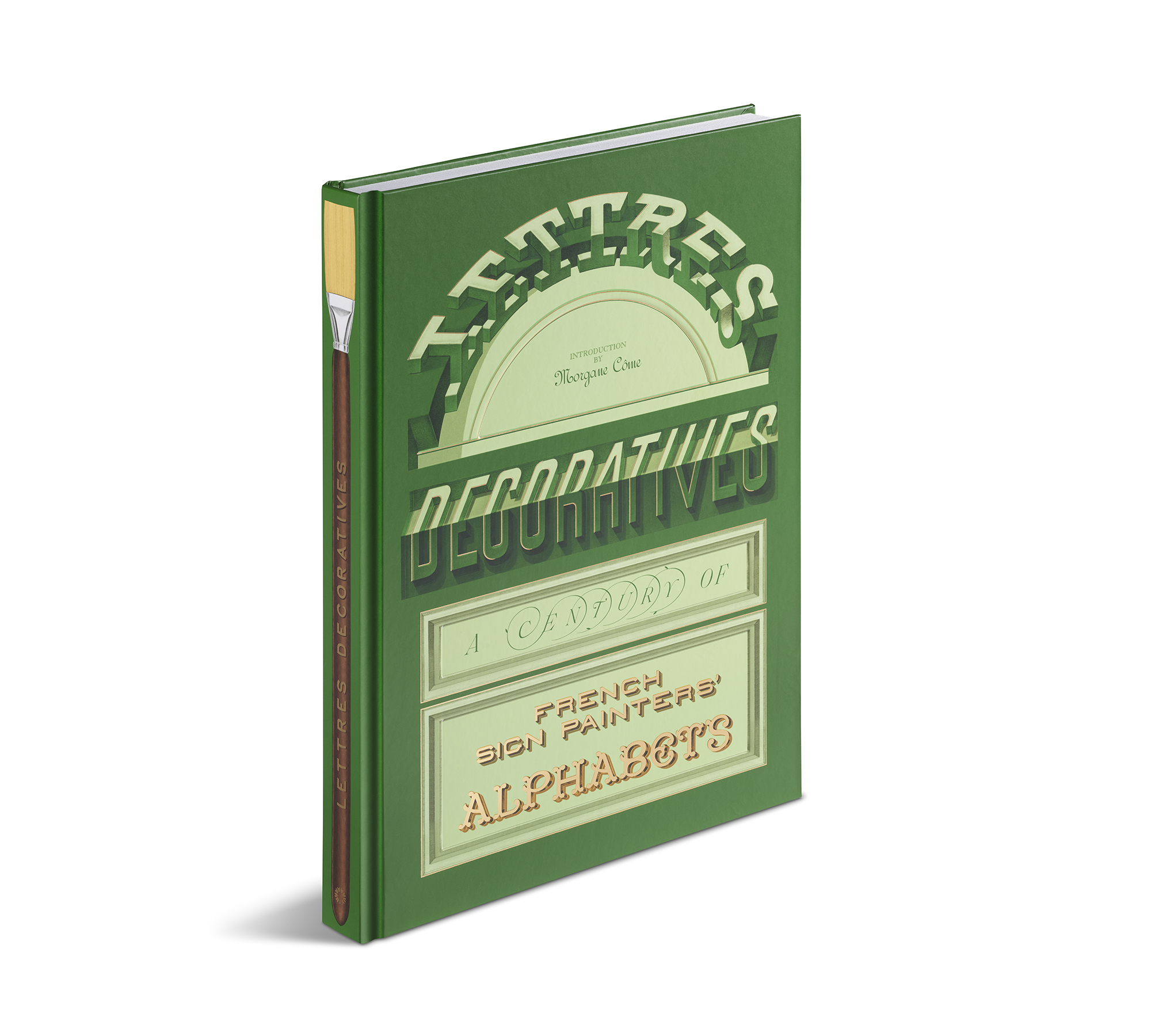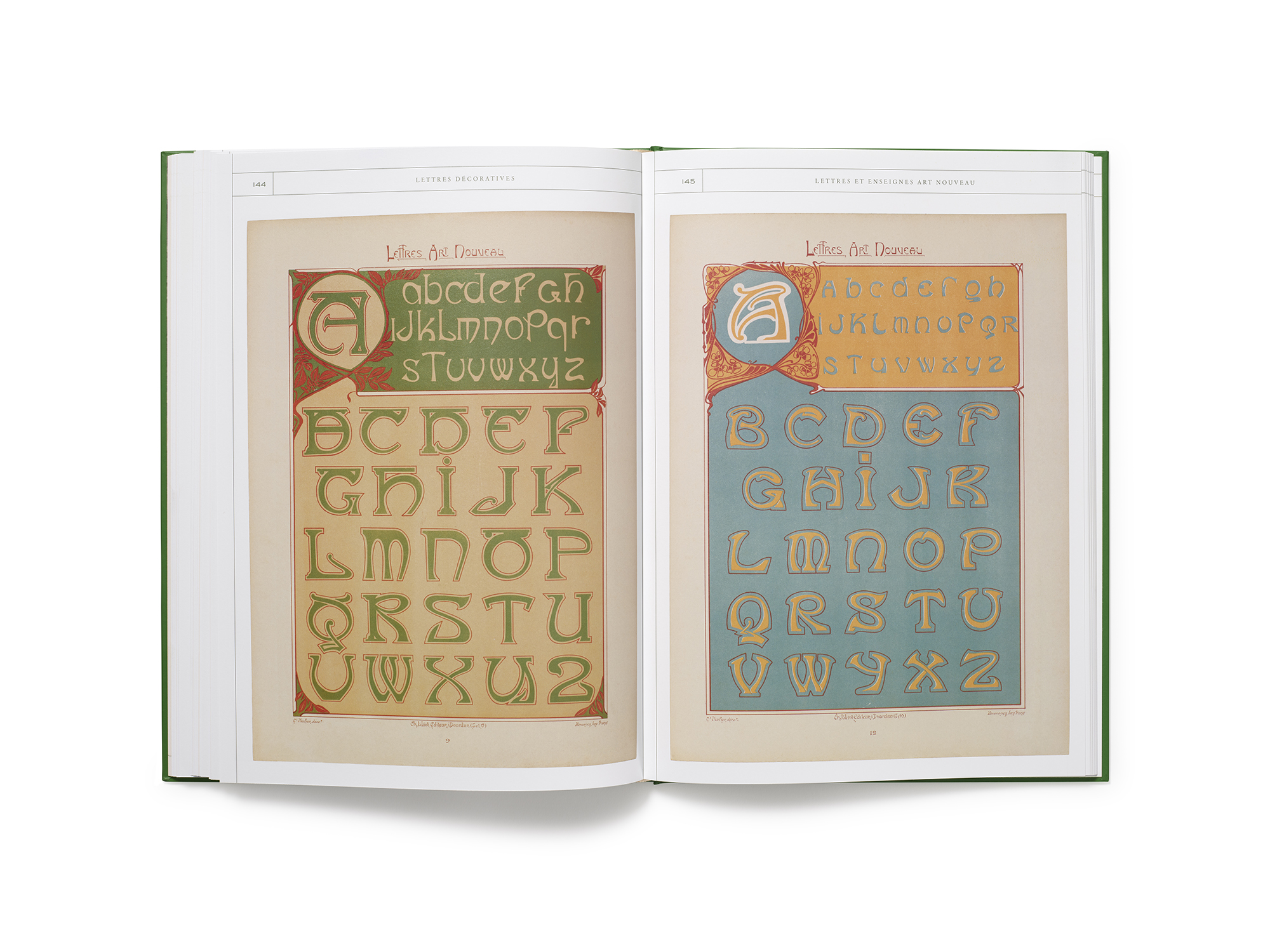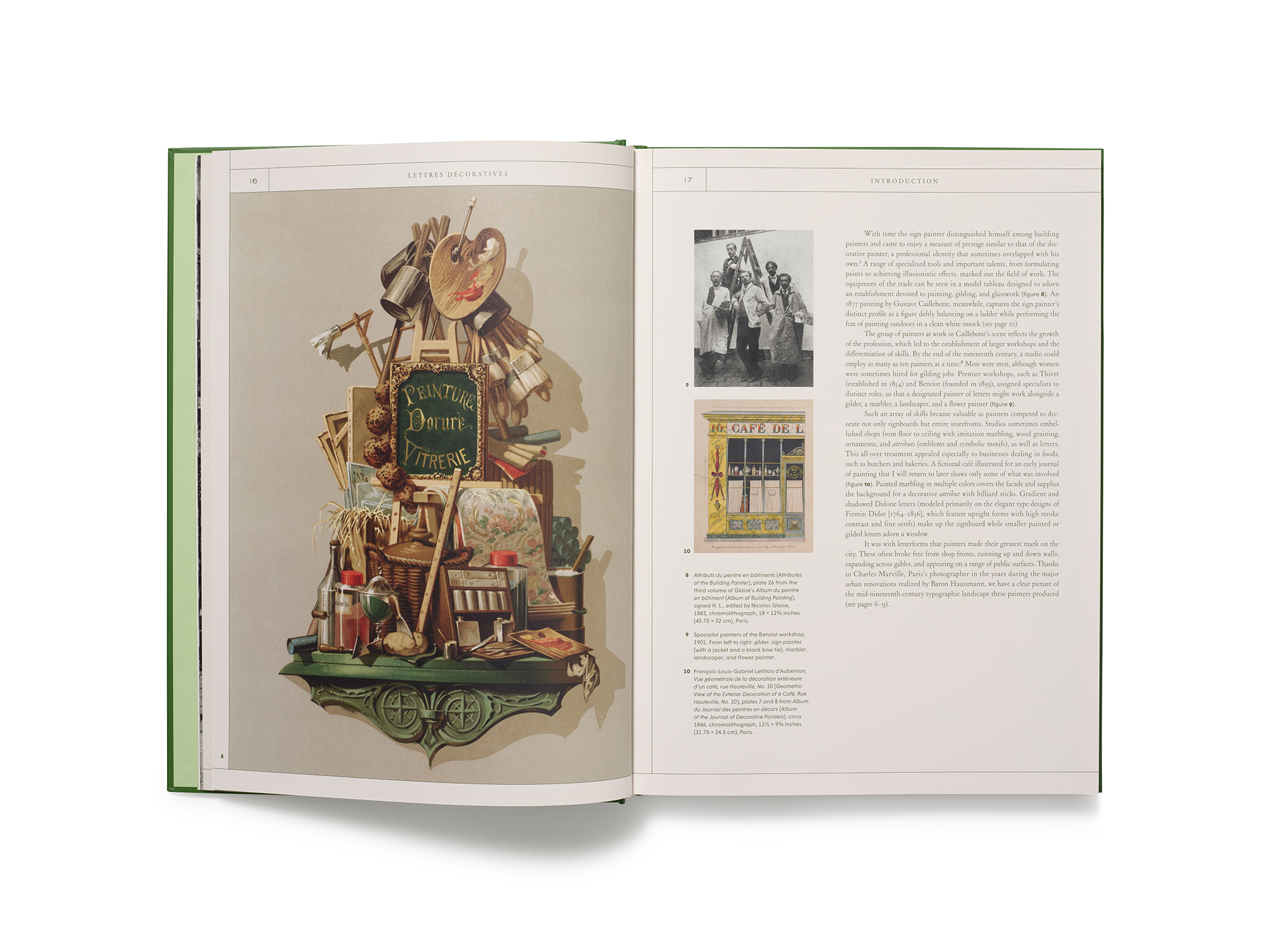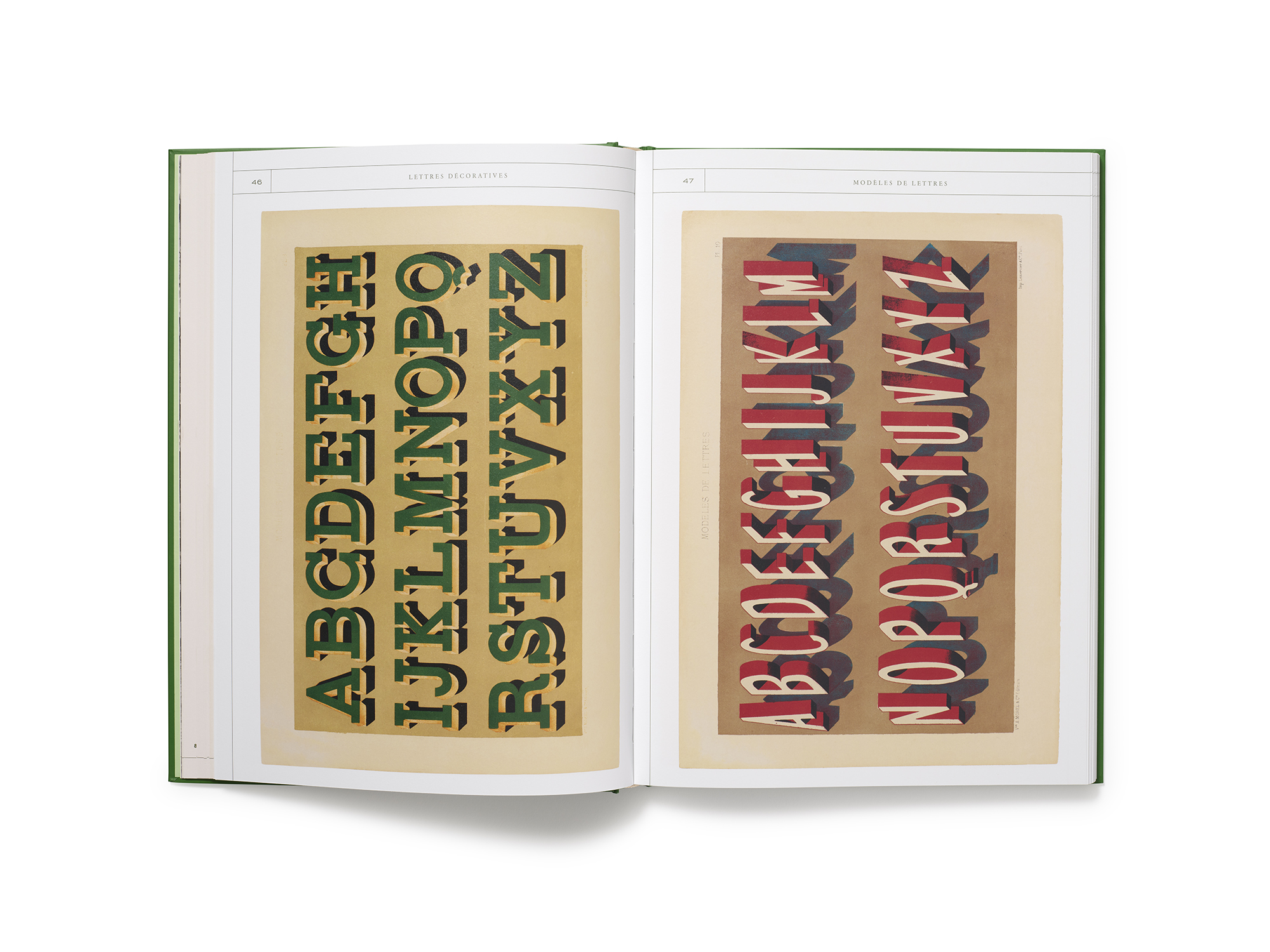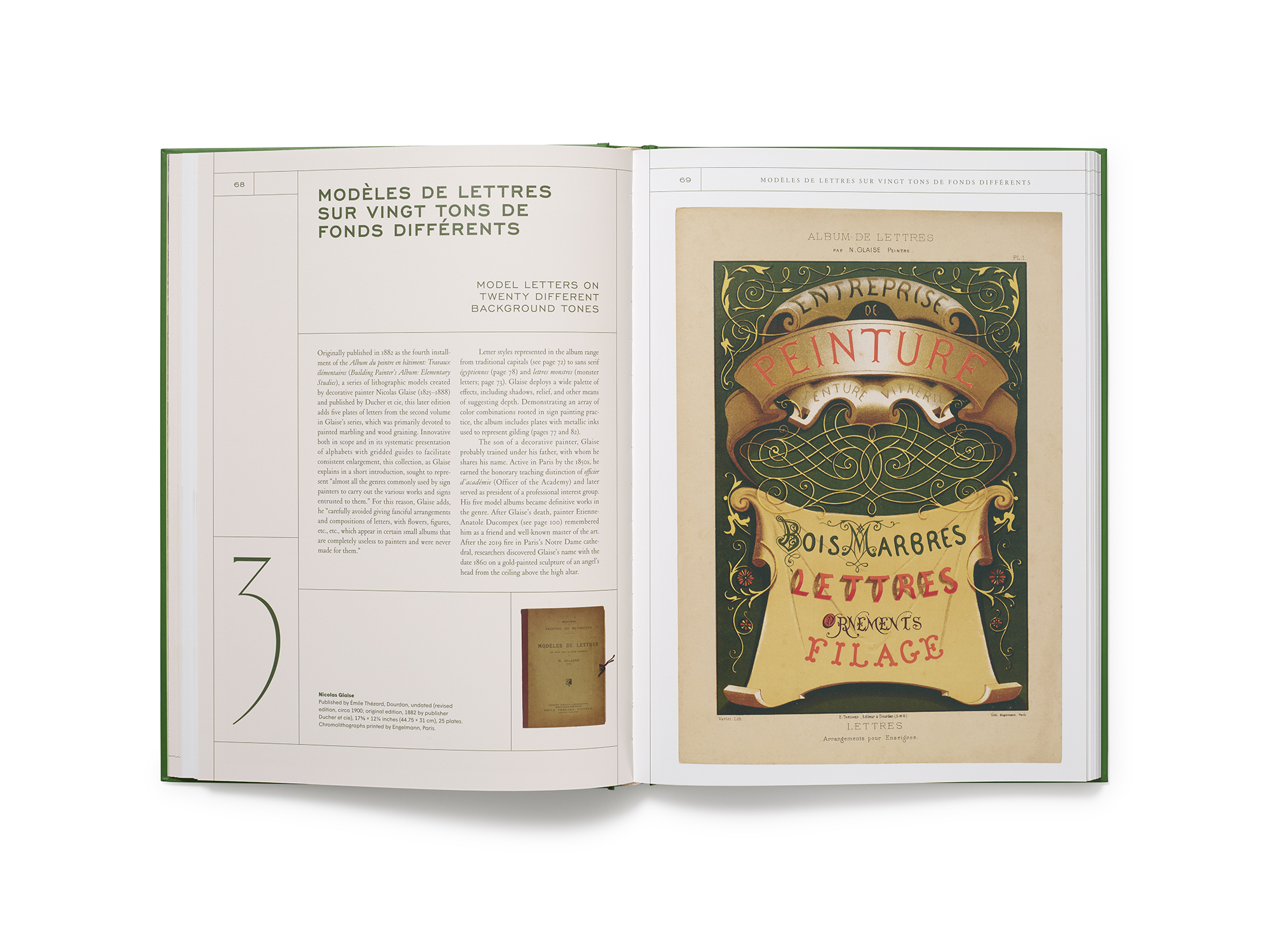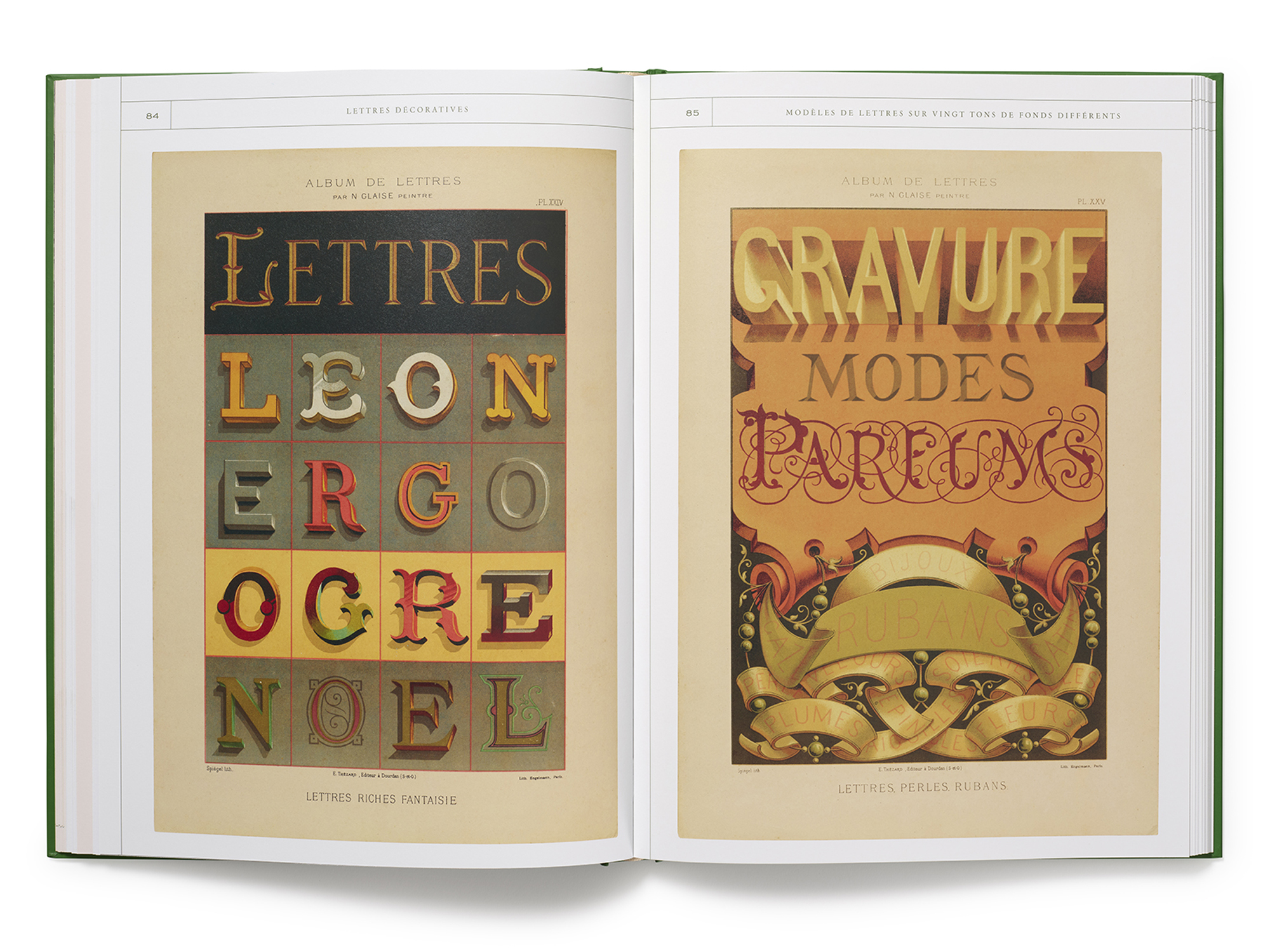
The Soul of the French Street: Letterform Archive Unveils “Lettres Décoratives”
If the walls of 19th-century Paris could talk, they would speak in the bold, dimensional, and unapologetically expressive tones of the sign painter. At Typeroom, we have always championed the intersection of heritage and high-spec design, which is why we are captivated by the latest release from Letterform Archive Books: Lettres Décoratives: A Century of French Sign Painters’ Alphabets.
This isn’t just a book; it is a vibrant resurrection of a lost urban vernacular. Spanning the transformative century between the 1830s and the 1930s, the volume serves as a definitive survey of the chromolithographic albums that once guided the hands of France’s master artisans.
A Century of Chromolithographic Brilliance
Before the standardization of digital type, sign painting was a playground of technical virtuosity. Lettres Décoratives features more than 150 meticulous plates drawn from rare, large-format portfolios. These weren’t just decorative samples—they were essential tools for working painters, acting as both pedagogical aids and a showcase for what was possible with ink and brush.
The collection charts a breathtaking stylistic evolution:
Classical Roots: The foundational elegance of traditional French lettering.
Art Nouveau Whimsy: The organic, flowing curves that defined the Belle Époque.
Art Deco Geometry: The bold, architectural forms that signaled the dawn of the modern era.
What truly stands out are the surprising dimensional alphabets. These “eccentric” signboards utilized shadow, perspective, and vibrant color palettes to leap off the flat page, proving that the experimental spirit of the 19th century was just as radical as anything in the avant-garde movements that followed.
Contextualizing the Craft
Letterform Archive has gone beyond mere reproduction by providing the historical muscle to match the visuals. The book features an in-depth introduction by contemporary French sign painter Morgane Côme, who bridges the gap between the historical archives and the living craft of today.
By pairing the alphabet plates with period photographs, the book allows us to see these letters in their natural habitat—plastered across the bustling boulevards and narrow alleys of the picturesque French city. It transforms the experience from a static gallery into an immersive time-traveling tour.
Modern Design, Archival Soul
The physical book itself is a testament to the Archive’s high standards. Designed by the acclaimed French studio Violaine & Jérémy, the scale and production quality honor the ambition of the original 19th-century portfolios. It feels both archival and contemporary—a dual identity that makes it an indispensable reference for today’s typographers and lettering artists.
Lettres Décoratives is a vivid reminder that the history of the letterform isn’t just found in books, but in the very fabric of our streets. It is a celebration of the “picturesque” and a masterclass in how historic craftsmanship continues to fuel our modern visual culture.